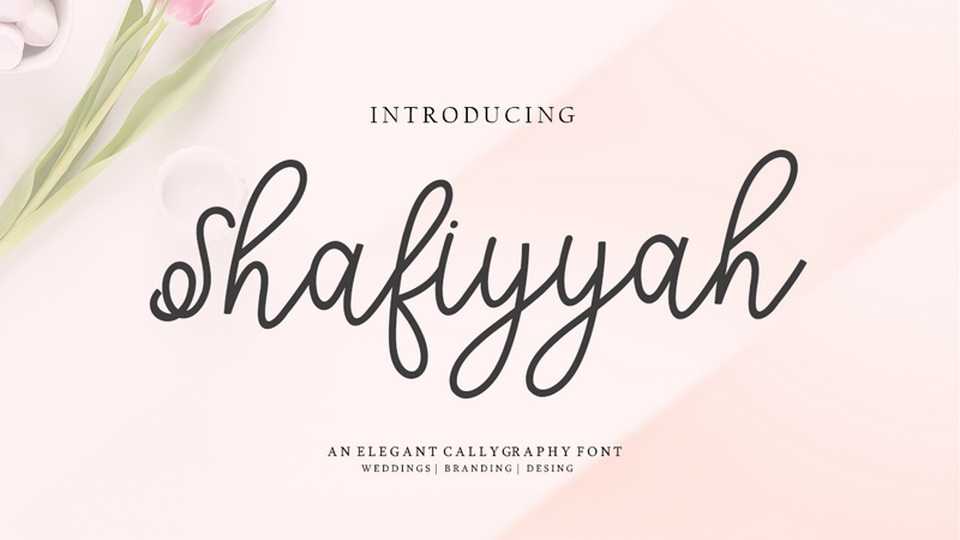
Download Shafiyyah font, a simple and casual handwritten script with lovely curls suitable for everyday things, crafts, cards, letters, social media posts and more.
Designer: mightype